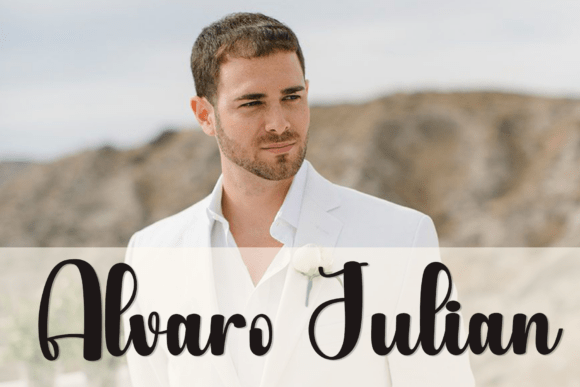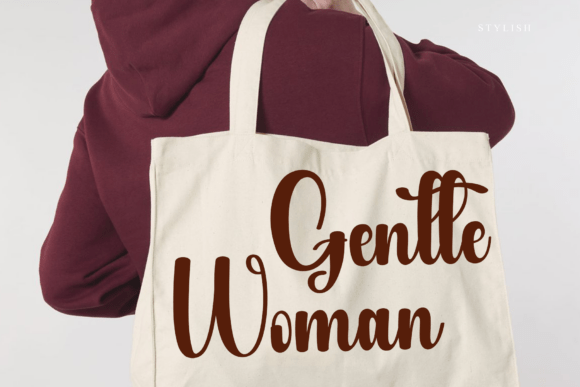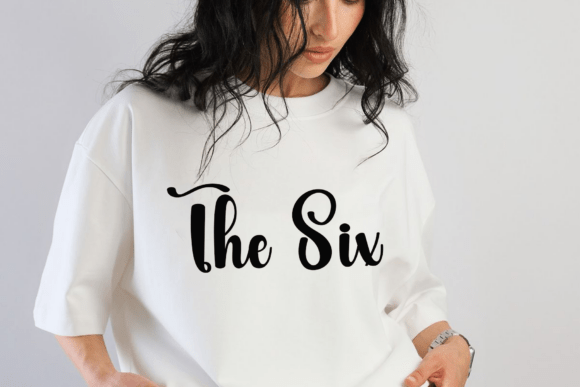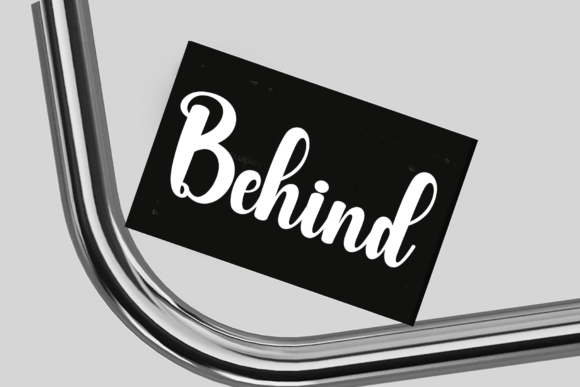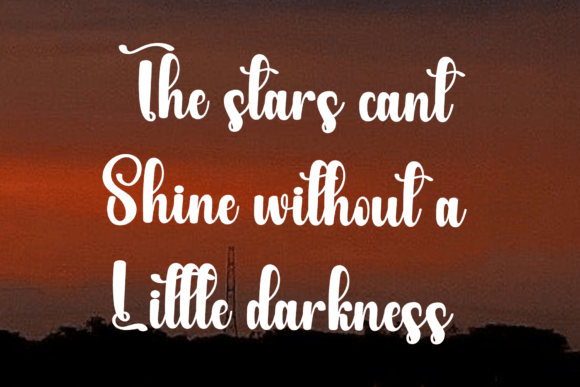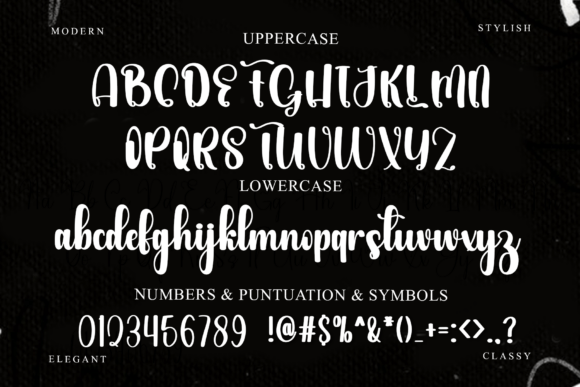
Introducing Birthday Children Font: The Perfect Addition to Your Design Arsenal
Are you tired of using the same old fonts for your personal projects, invitations, and social media graphics? Look no further than the Birthday Children Font, a casual and creative font that exudes warmth and friendliness. With its round, playful strokes, this font creates a relaxed and approachable feel that’s perfect for designers and crafters looking to add a fun and unique touch to their designs.
The Charm of Birthday Children Font
The Birthday Children Font is a hand-drawn font that boasts a charming, whimsical aesthetic. Its playful strokes and rounded edges create a sense of warmth and approachability, making it perfect for designs that require a personal touch. Whether you’re creating invitations for a birthday party, designing graphics for social media, or working on a personal project, this font is sure to add a touch of fun and personality to your design.
Key Features of Birthday Children Font
- Hand-Drawn Aesthetic: The font’s hand-drawn aesthetic gives it a unique and playful feel that’s perfect for designs that require a personal touch.
- Playful Strokes: The font’s round, playful strokes create a relaxed and approachable feel that’s perfect for personal projects, invitations, and social media graphics.
Uses for Birthday Children Font
The Birthday Children Font is a versatile font that can be used in a variety of design applications. Here are a few ideas to get you started:
- Personal Projects: Use the Birthday Children Font to add a personal touch to your personal projects, such as photo albums, scrapbooking, and other craft projects.
- Invitations: The font is perfect for creating invitations for birthday parties, baby showers, and other celebrations.
- Social Media Graphics: Use the font to create fun and engaging social media graphics, such as Facebook posts, Instagram stories, and Twitter headers.
- Crafting: The font is perfect for crafters who want to add a personal touch to their projects, such as knitting patterns, sewing projects, and other handmade crafts.
Tips for Using Birthday Children Font
Here are a few tips for using the Birthday Children Font in your designs:
- Pair with Other Fonts: The Birthday Children Font pairs well with other playful fonts, such as sans-serif fonts and script fonts.
- Use in Combination with Images: The font looks great when used in combination with images, such as photographs and illustrations.
- Experiment with Colors: The font comes in a range of colors, so don’t be afraid to experiment with different colors to find the perfect look for your design.